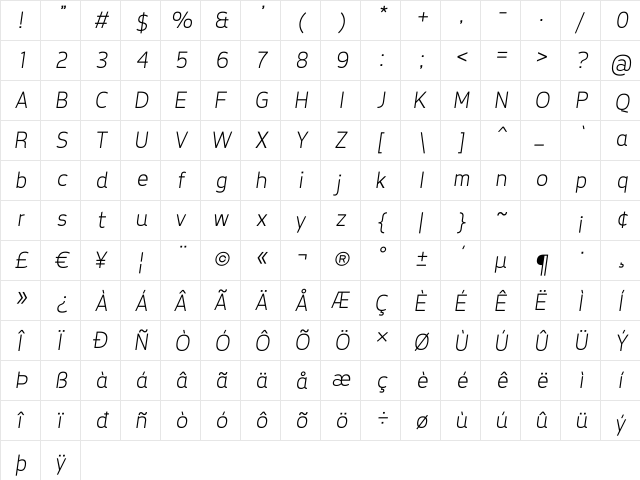
Tepeno Sans Light Italic
| Designer | Jayvee D. Enaguas (Grand Chaos) |
Design Context for Tepeno Sans Light Typeface
Tepeno Sans Light offers clean, dependable letterforms without strong stylistic allegiance, making it a practical choice for designers who need flexibility. Its italic angle brings a sense of urgency and motion to the letterforms. The delicate stroke weight brings airiness and refinement to layouts.
Pro Tip: Use Tepeno Sans Light for emphasis, pull quotes, and subheadings where its slanted energy can add rhythm to the layout.